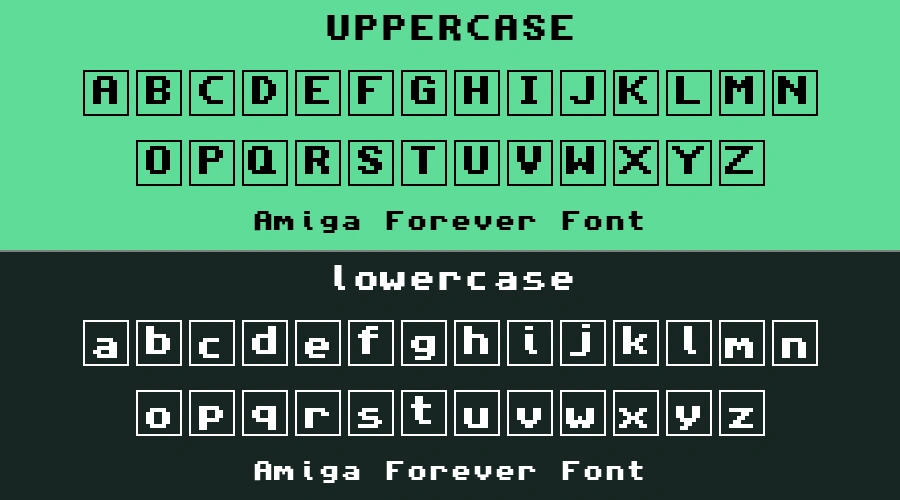
About Amiga Forever Font
Amiga Forever Font represents a sophisticated approach to type design, balancing natural flow with exceptional clarity. Perfect for scientific papers, this font family showcases impressive clarity and creative impact throughout its character set. Designers appreciate its versatility and reliability.
Designers will appreciate nuanced touches including decorative elements and dingbat elements, adding sophistication to any project. These features become apparent in business cards, where texture integration matters most. The careful treatment of cap height ratio and historical references ensures optimal performance.